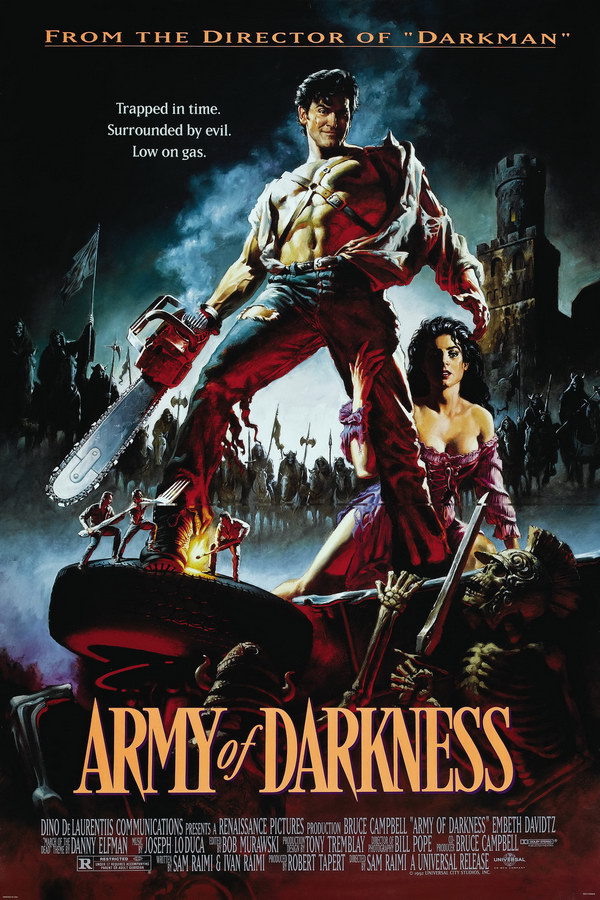
AdventureArmy of Darkness, is a 1992 horror comedy film directed by Sam Raimi and starring Bruce Campbell. It follows the adventures of Ash Williams as he travels back in time and battles an army of the undead in medieval England
Daniel Goulart Araujo, a Brazilian designer, created the font for Army of Darkness which is very similar to the font used in the movie poster. The font can be downloaded for free at no cost from the Fonts Used Section.